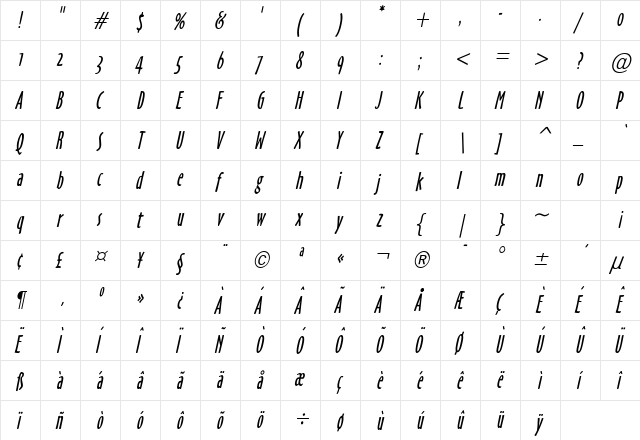
Hobby Condensed Italic Font Preview
Design Context for Hobby Condensed Typeface
Hobby Condensed is a composed and adaptable typeface that performs quietly and consistently across a wide range of design contexts. The dynamic lean of this cut emphasises speed and emphasis in any layout. Its narrow stance lets it pack a punch even in space-constrained designs.